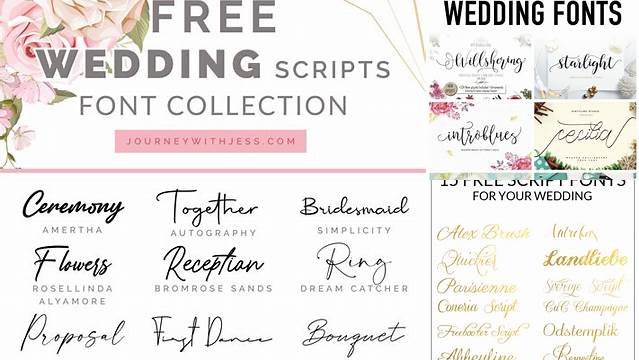
Free Wedding Script Fonts: Download Now!
Choosing the perfect font for your wedding invitations, signage, and other stationery can truly set the tone for your big day. A beautiful script font can add a touch of elegance, romance, and personality. And the best part? You can find amazing wedding script fonts free download options online! Let's dive into the world of free fonts and explore how to find the perfect one for your wedding.
1. Elegant Wedding Script Fonts
When you think of wedding script fonts free download, you probably imagine graceful, flowing letterforms that evoke a sense of classic romance. These elegant fonts often feature delicate strokes and intricate details, making them ideal for formal invitations, place cards, and thank-you notes. When selecting an elegant script, consider the overall style of your wedding. Are you going for a traditional, black-tie affair, or something more modern and sophisticated? The font should complement your theme and enhance the visual appeal of your printed materials.
Think about how the font will look at different sizes too. A beautifully ornate script might be stunning on a large invitation, but it could become illegible when used for smaller text on a website or favor tag. Play around with different font sizes and weights to find the perfect balance. Guys, don't be afraid to experiment! The world of typography is vast and exciting.
2. Modern Wedding Script Fonts
For couples planning a contemporary celebration, modern wedding script fonts free download options offer a fresh and stylish alternative to traditional calligraphy. These fonts often feature clean lines, subtle curves, and a more minimalist aesthetic. They're perfect for couples who want to convey a sense of chic sophistication without being overly formal.
Modern script fonts can be incredibly versatile. They work well on invitations, signage, and even on your wedding website. Consider pairing a modern script with a sans-serif font for a clean and balanced look. This combination can create a visual hierarchy, making your text easy to read and visually appealing. Remember, the goal is to communicate clearly while still maintaining a stylish aesthetic.
3. Calligraphy Wedding Script Fonts
There's something undeniably romantic about calligraphy. The fluid strokes and artistic flourishes of these fonts evoke a sense of handmade elegance. If you're looking for wedding script fonts free download that capture the beauty of traditional calligraphy, you'll find plenty of options online. These fonts are ideal for couples who want to add a personal touch to their wedding stationery.
Calligraphy fonts can range from classic and formal to whimsical and playful. Consider the overall tone of your wedding when choosing a calligraphy font. A formal calligraphy script might be perfect for a traditional wedding, while a more playful script could be ideal for a rustic or bohemian celebration. Don't be afraid to mix and match different calligraphy styles to create a unique and personalized look.
4. Vintage Wedding Script Fonts
Vintage wedding script fonts free download are perfect for couples who love the charm and nostalgia of bygone eras. These fonts often feature ornate details, swashes, and a touch of old-world glamour. They're ideal for weddings with a vintage, Art Deco, or Victorian theme. Think about incorporating these fonts into your invitations, menus, and even your wedding website for a cohesive and timeless feel.
When choosing a vintage script, consider the era you're trying to evoke. A font with strong, geometric lines might be perfect for an Art Deco wedding, while a more flowing script with intricate details could be ideal for a Victorian celebration. Pay attention to the details and choose a font that truly captures the essence of your chosen era.
5. Romantic Wedding Script Fonts
Romance is at the heart of every wedding, and your font choice should reflect that. Romantic wedding script fonts free download options are designed to evoke feelings of love, joy, and happiness. These fonts often feature soft curves, delicate strokes, and a touch of whimsy. They're perfect for couples who want to create a warm and inviting atmosphere.
Consider using romantic script fonts for your invitations, save-the-dates, and even your vows. A beautifully written vow, set in a romantic script, can be a cherished keepsake for years to come. Think about how the font will look alongside other design elements, such as floral illustrations or watercolor washes. The goal is to create a harmonious and visually stunning composition.
6. Elegant Calligraphy Fonts for Weddings
Elegant calligraphy fonts are a classic choice for weddings, exuding sophistication and timeless beauty. For couples seeking wedding script fonts free download that capture this essence, there are numerous options available. These fonts often feature graceful curves, delicate strokes, and a refined aesthetic, making them perfect for formal invitations, place cards, and thank-you notes. The key is to select a font that complements your wedding style and theme.
Begin by identifying your wedding's overall theme, whether it's classic, modern, rustic, or bohemian. This will help narrow down the font styles that are most suitable. Consider the font's legibility, particularly for essential details like date, time, and venue. Test the font in different sizes and applications to ensure it remains clear and readable. Finally, think about how the font pairs with other design elements, such as colors, graphics, and layout. By carefully evaluating these factors, you can select a free wedding script font that perfectly complements your special day.